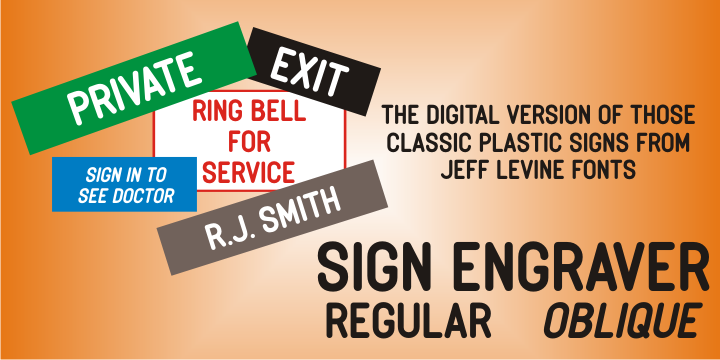
Sign Engraver JNL Font is perfect for professional signage businesses, custom engraving services, trophy shop branding, memorial plaque designs, architectural building signage, corporate nameplate graphics, traditional craftsman logos, and distinguished designs that require authentic engraving craftsmanship and professional precision.
This font is exciting because it preserves the timeless art of traditional engraving through its meticulously crafted letterforms that capture the precision and dignity of hand-engraved signage and memorial work. The professional character design embodies the dedication and skill of master engravers, making it perfect for businesses seeking to convey craftsmanship, permanence, and professional excellence.
Sign Engraver JNL Font belongs to the professional engraving font family, featuring craftsman styling and precision elements that enhance its authenticity for signage and memorial-focused design applications.
Whether you're creating professional engraving business branding or memorial service graphics, Sign Engraver JNL Font Free Download delivers exceptional craftsmanship authority and engraving authenticity. This typeface represents the perfect preservation of traditional engraving techniques while maintaining functionality for contemporary applications. The font's distinguished presence works magnificently in professional signage, memorial communications, and craftsman branding, providing superior readability while maintaining its engraving character that transforms any design with professional craftsmanship and creates lasting memorial experiences across all media platforms and professional engraving communications.